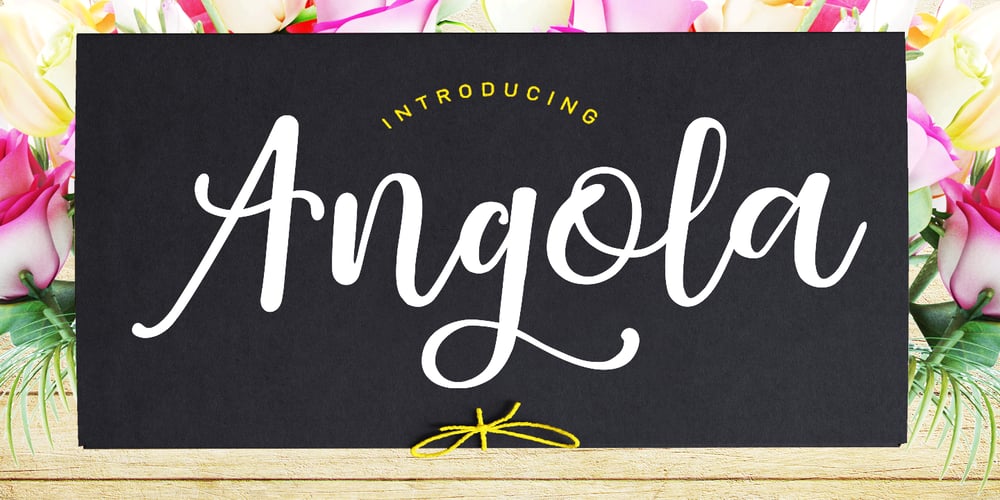
Angola Script
Angola Script font
Angola Script Font Family was designed by Yur Lis and published by Stripes Studio. Angola Script contains 1 styles and family package options. Our latest font Angola Script has a kind of modern hand-written feel, I hope you like it. It can easily and simply be used because there are a lot of features in it: Angola Script contains a complete set of lower and uppercase letters, assorted punctuation, numbers, multi-lingual support and also several ligatures and Stylistic Alternates. To enable the OpenType Stylistic alternates, you need a program that supports OpenType features such as Adobe Illustrator CS, Adobe Indesign & CorelDraw X6-X7, Microsoft Word 2010 or later versions. And there are additional ways to access alternates/swashes, using Character Map (Windows), Nexus Font (Windows), Font Book (Mac) or a software program such as PopChar (for Windows and Mac). How to access all alternative characters using Adobe Illustrator: https://www.youtube.com/watch?v=XzwjMkbB-wQ How to access all alternative characters, using Windows Character Map with Photoshop: https://www.youtube.com/watch?v=Go9vacoYmBw This Font has given PUA unicode. Thank you for your purchase!